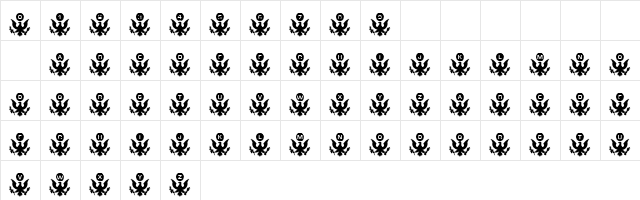
101! US of A Regular
Design Context for 101! US of A Typeface
101! US of A is a composed and adaptable typeface that performs quietly and consistently across a wide range of design contexts.